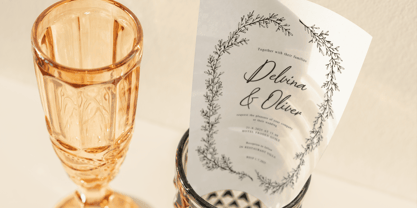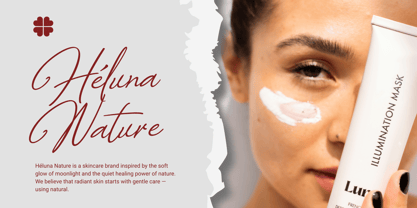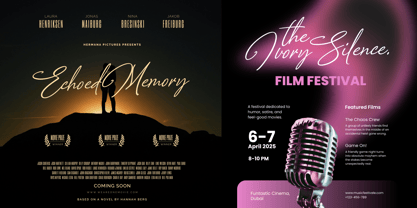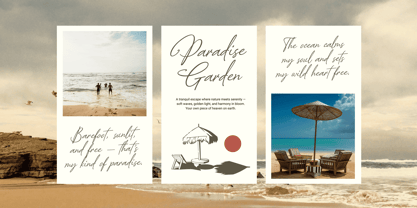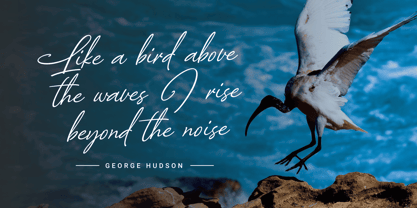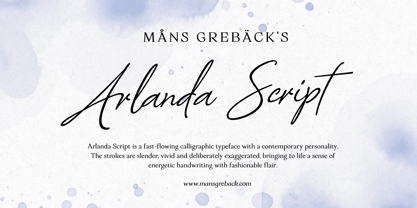
Arlanda Script
by Mans Greback
The Arlanda Script Font Family was designed by Måns Grebäck and published by Mans Greback. Arlanda Script contains 8 styles and family package options. More about this family
Arlanda Script is a fast-flowing calligraphic typeface with a contemporary personality. The strokes are slender, vivid and deliberately exaggerated, bringing to life a sense of energetic handwriting with fashionable flair. It strikes a balance between artistic expression and professional rhythm, shaped to feel both handwritten and stylishly composed.
The uppercase letters are tall and confident, almost theatrical in their curves, while the lowercase set glides smoothly across the line with natural elegance. It’s the kind of script you’d expect to see on the pages of a personal journal, scrawled across a luxury packaging label, or signed with flourish at the end of a heartfelt letter.
The font is built with advanced OpenType functionality and guaranteed top-notch quality, containing stylistic and contextual alternates, ligatures and more automatic and manual features; all to give you full control and customizability.
It has extensive lingual support, covering all Latin-based languages, from North Europa to South Africa, from America to South-East Asia. It contains all characters and symbols you'll ever need, including all punctuation and numbers.
Designed and built by Mans Greback in 2025.